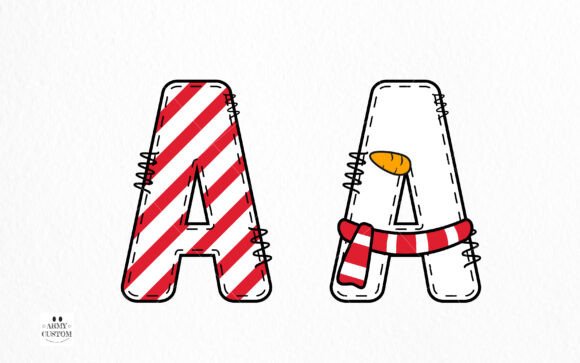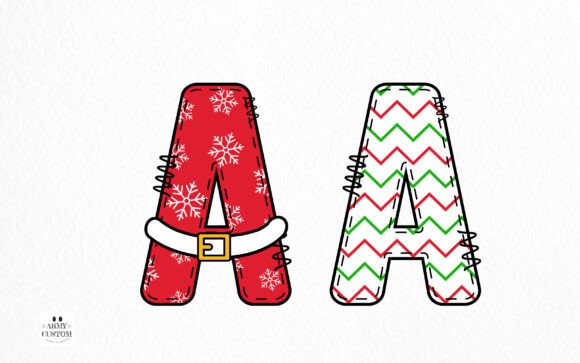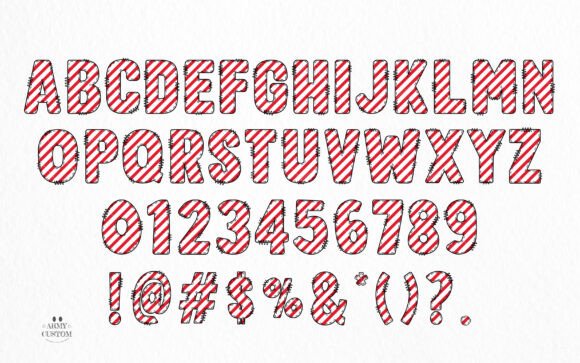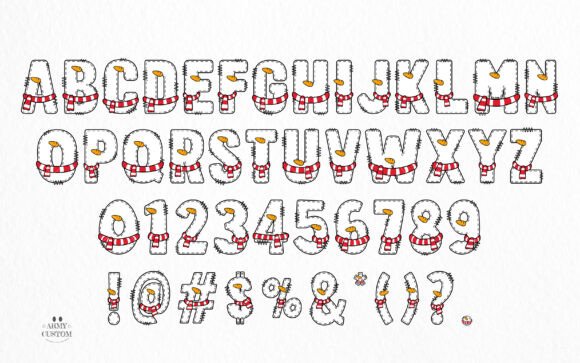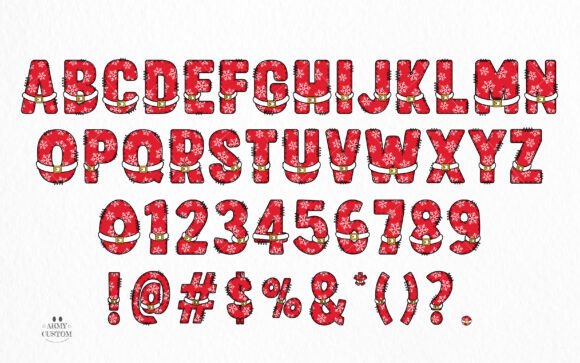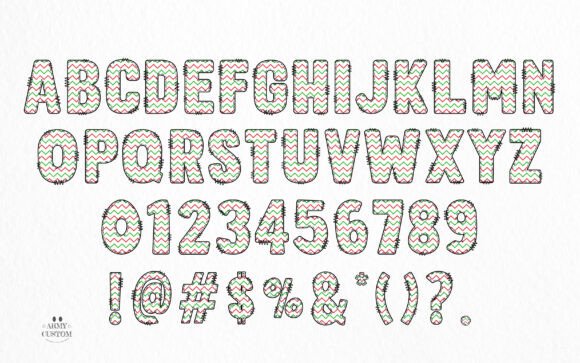
Elevate Your Festive Projects with the Delightful Christmas Army Bundle Font
It’s the most wonderful time of the year, and what better way to get into the holiday spirit than with a font that’s as festive as it is fun? Look no further than the ‘NO.8 Christmas Army Font Bundle’, a playful and whimsical addition to your holiday design toolkit. This delightful font is perfect for creating vibrant holiday decorations, adding a dash of merriment to any design project, or simply getting into the holiday spirit.
A Font that’s Full of Cheer
The Christmas Army Bundle Font is a jovial and charming font that’s sure to bring a smile to your face. Its unique style is reminiscent of classic holiday decorations, with a playful twist that’s sure to make your projects stand out. Whether you’re a designer, crafter, or simply someone who loves the holiday season, this font is a must-have for anyone looking to add a little extra magic to their projects.
Getting Creative with Christmas Army Bundle Font
Why Choose the Christmas Army Bundle Font?
- Unique and playful style: This font is unlike anything you’ve seen before – its unique style is sure to make your projects stand out.
The Christmas Army Bundle Font is a must-have for anyone looking to add a little extra magic to their holiday projects. With its playful and whimsical style, this font is perfect for creating vibrant holiday decorations, adding a dash of merriment to any design project, or simply getting into the holiday spirit. So why wait? Download the Christmas Army Bundle Font today and start creating your own festive holiday projects!